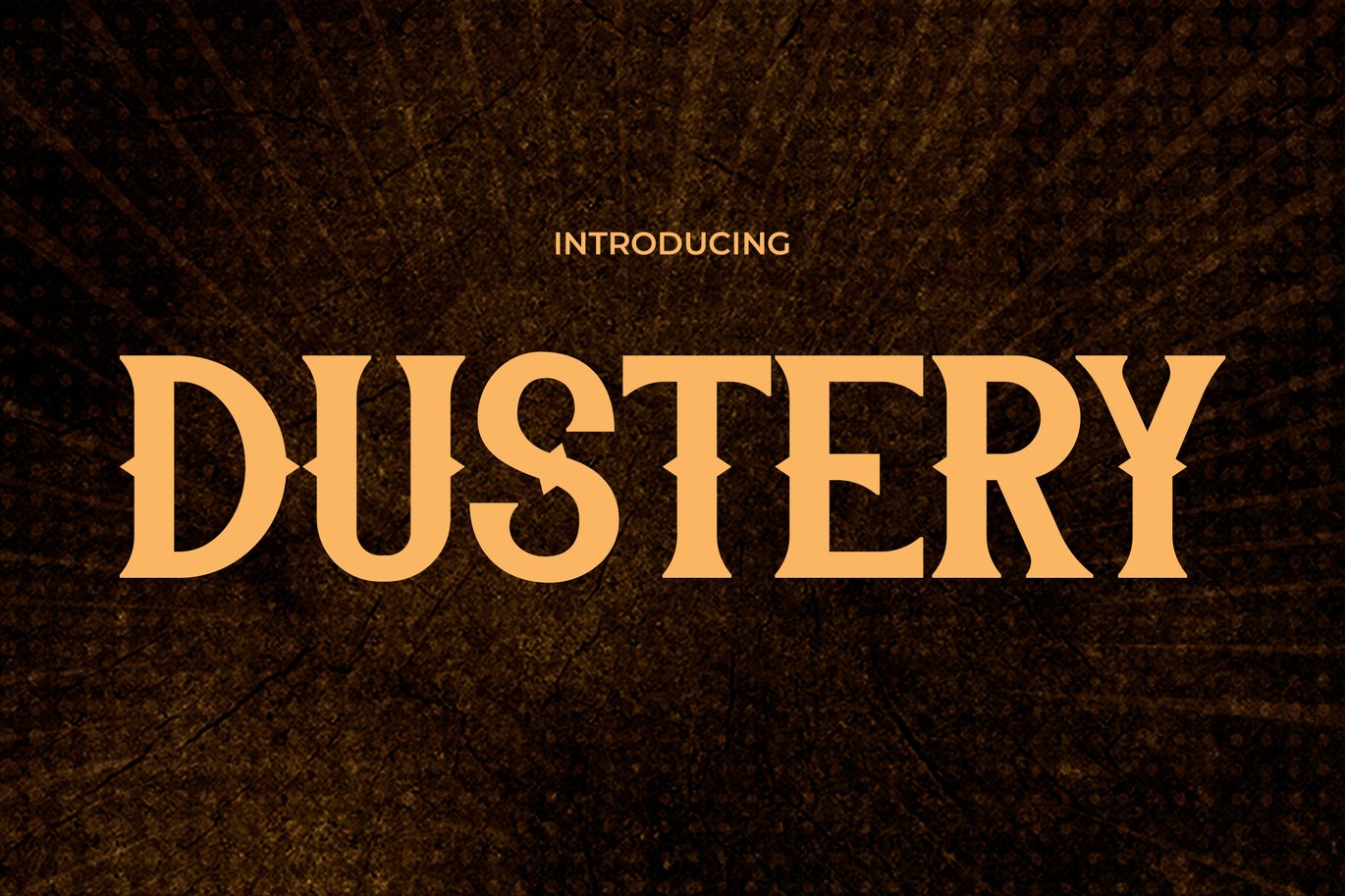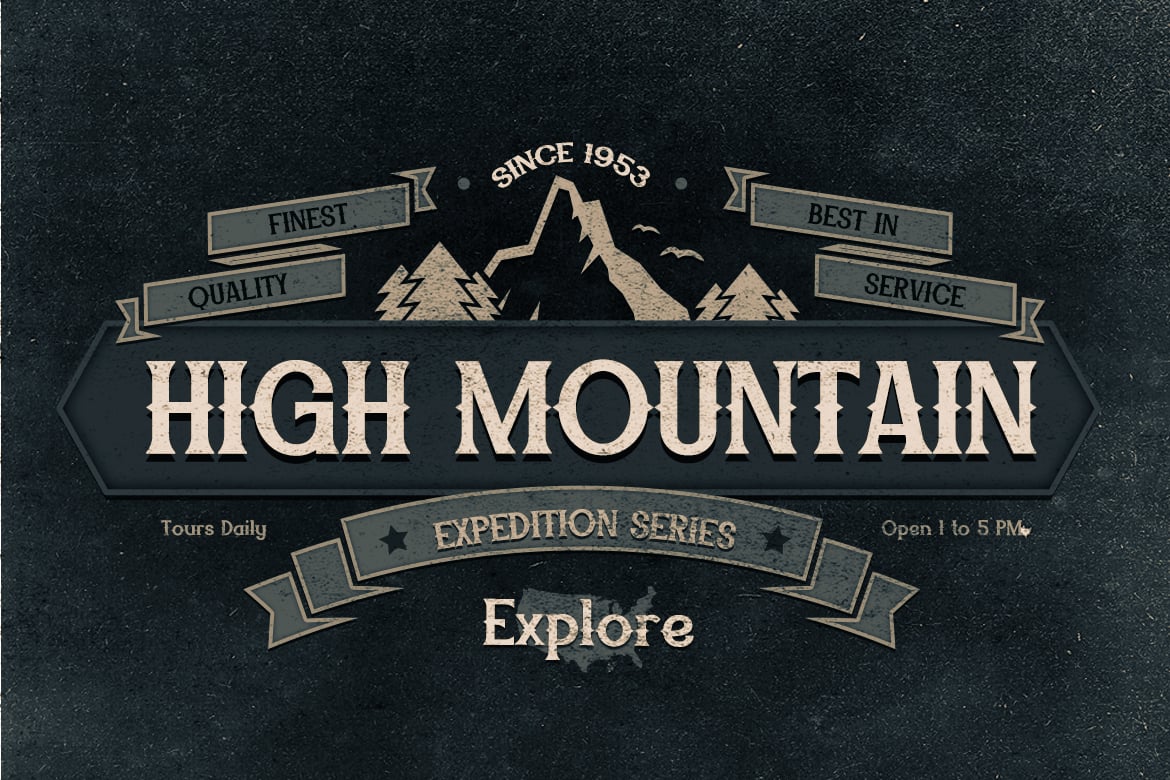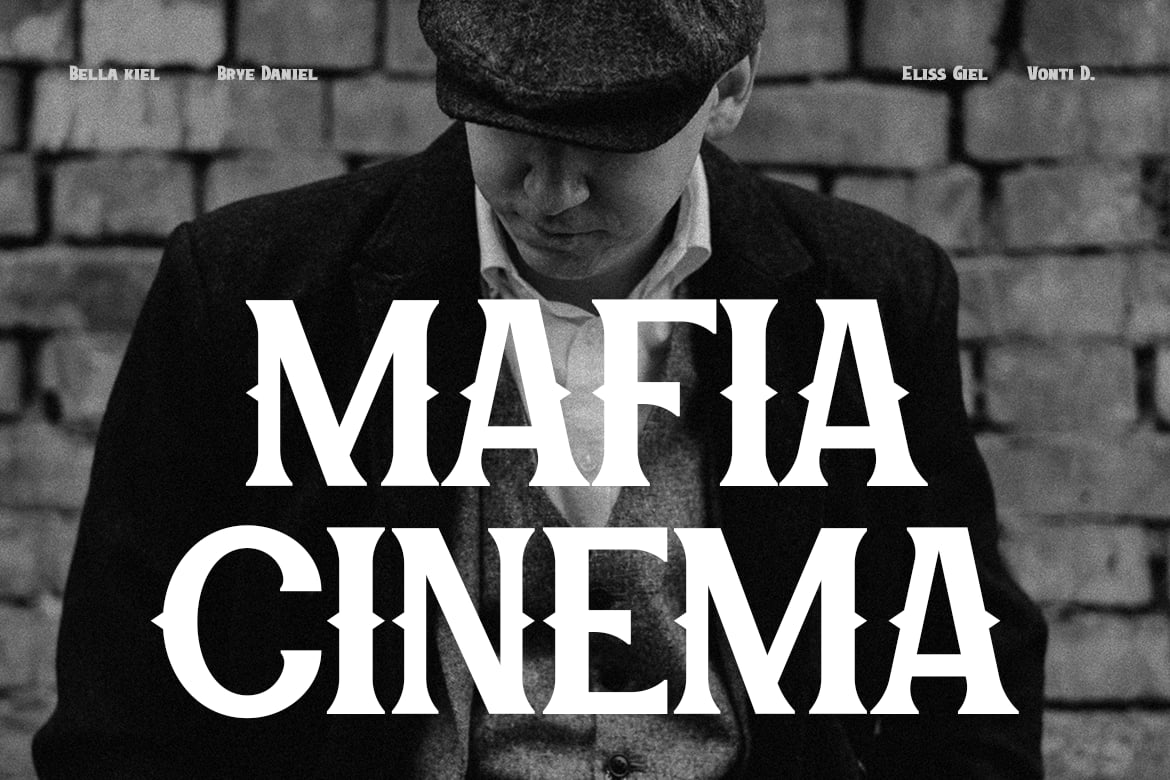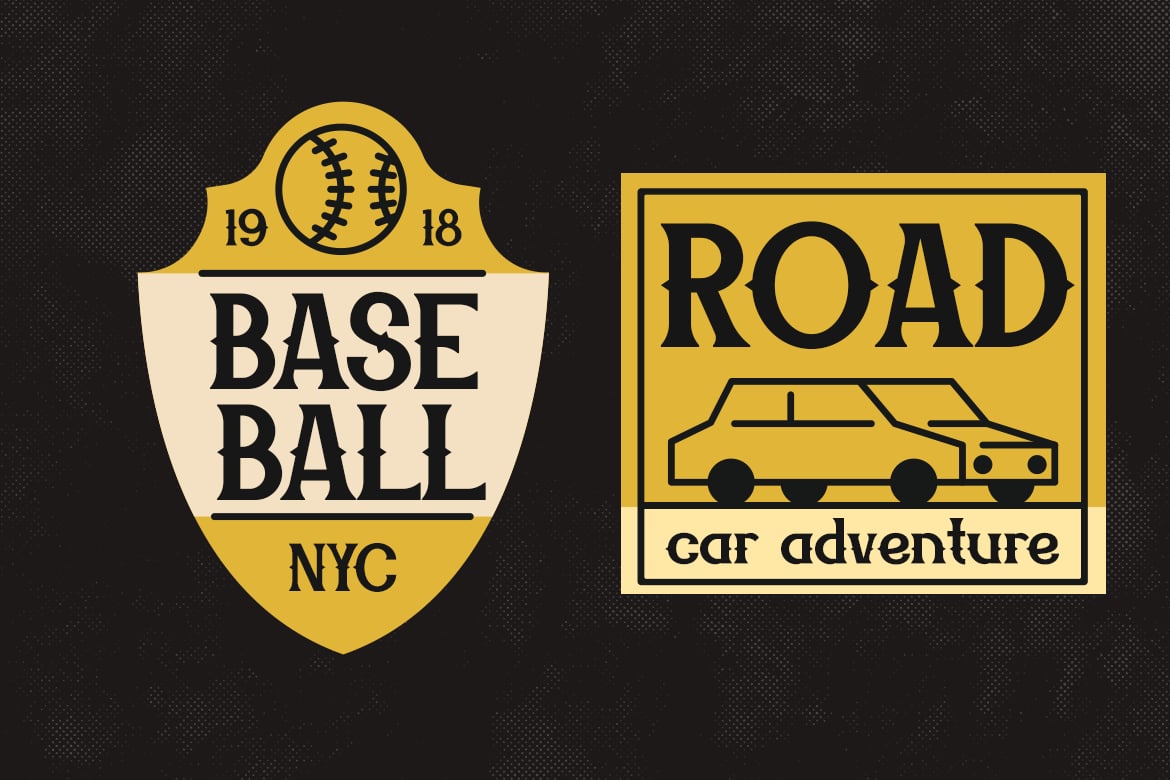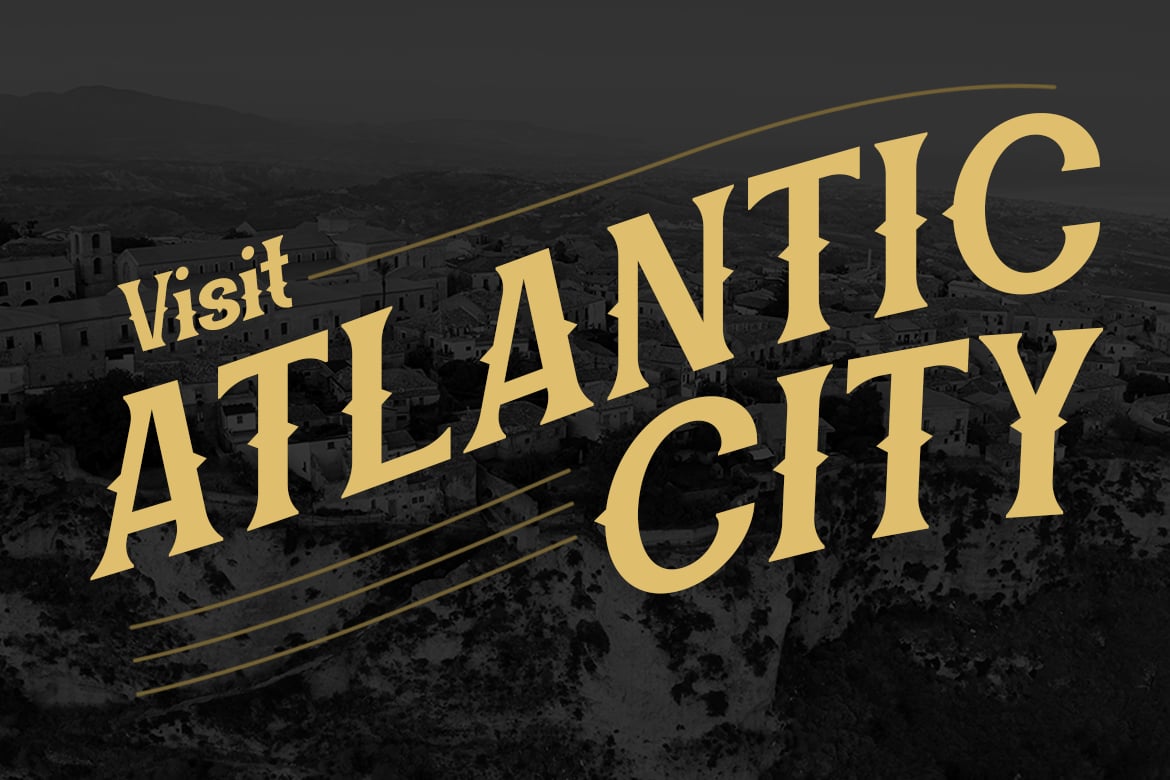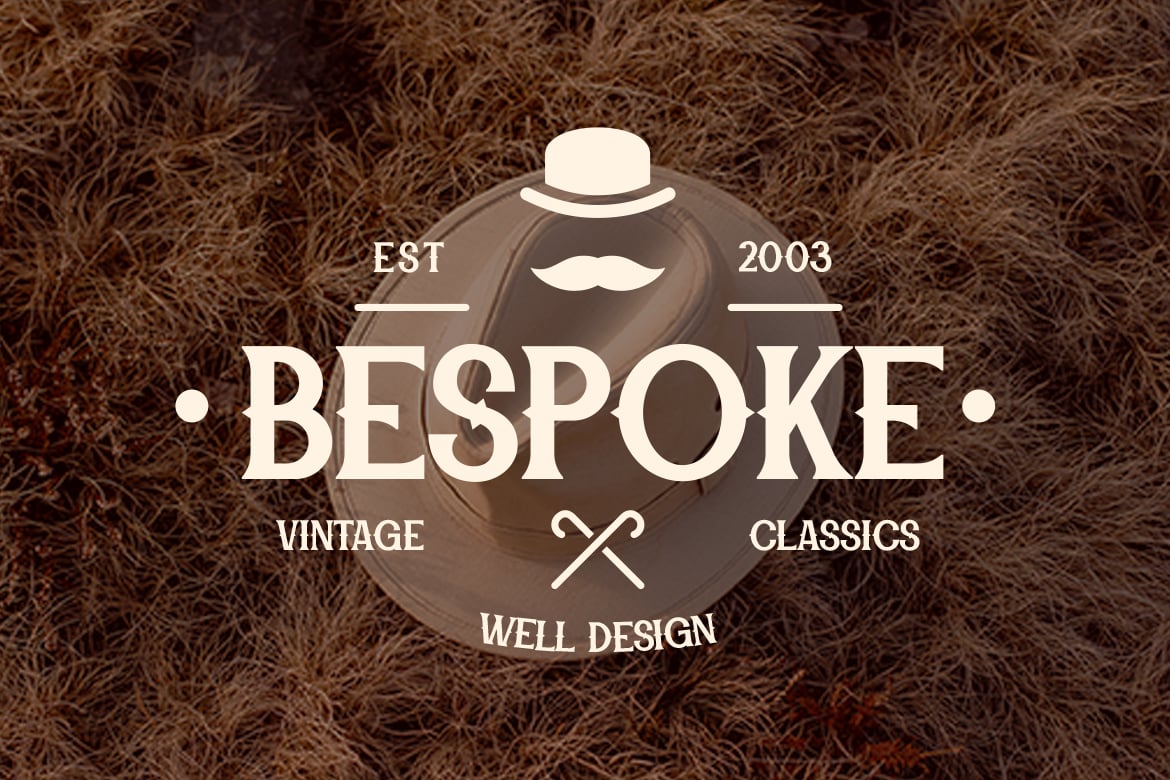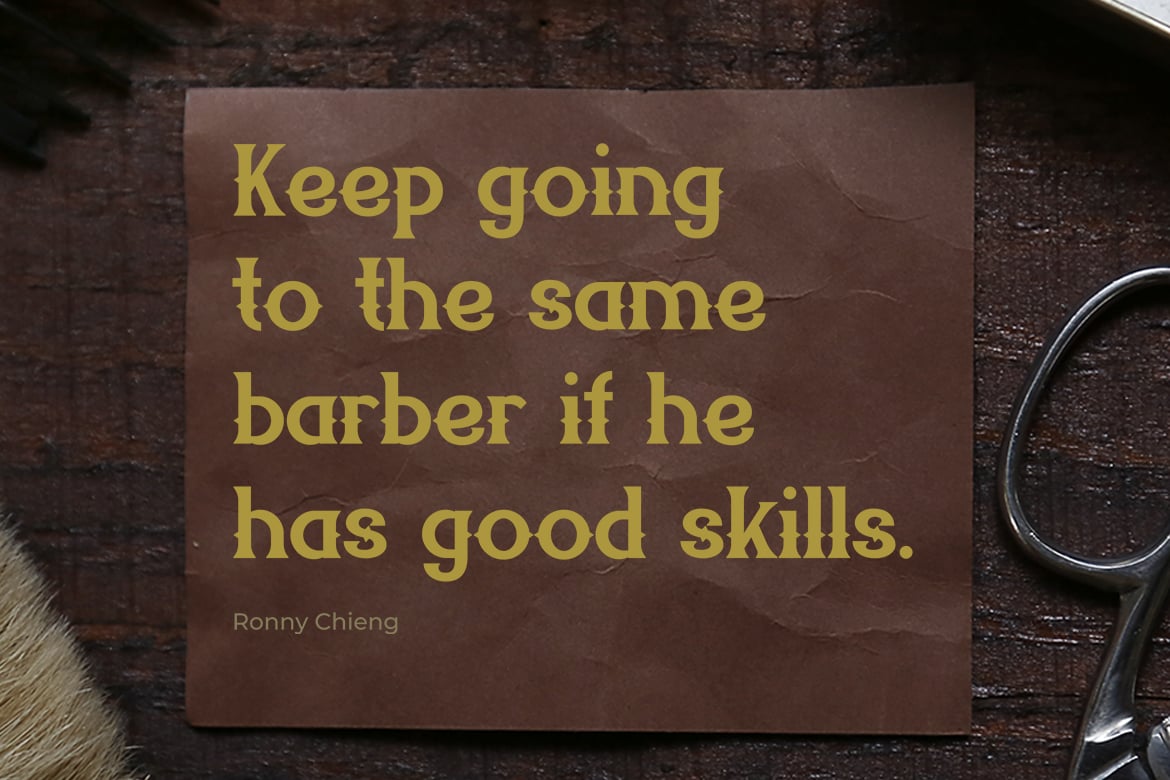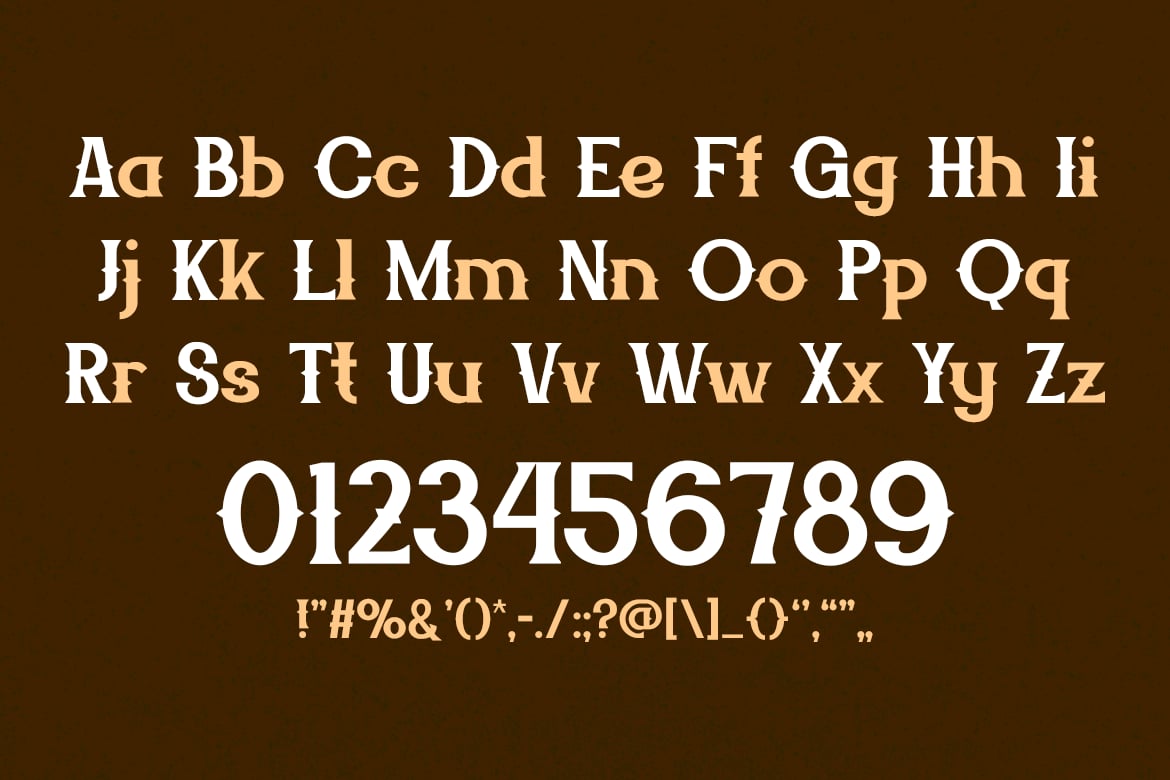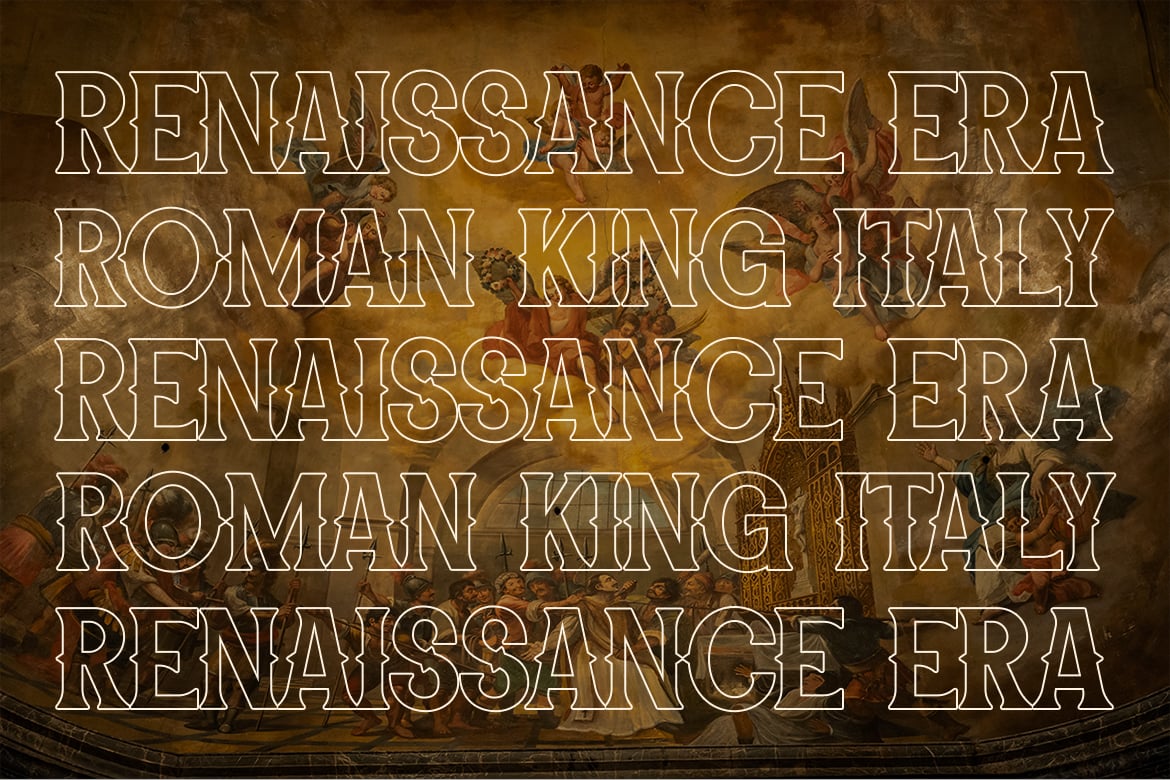
Dustery Modern Elegance with a Retro Western Font
Dustery is a uniquely modern font that artfully blends retro elegance with cowboy and Western styles. This font creates a perfect harmony between contemporary design and the rugged charm of the Old West. Dustery adds a distinctive character to logos, infusing brands with a blend of modern sophistication and Western authenticity. Its elegant yet bold style is particularly effective in enhancing quotes, adding a touch of rugged elegance that captures the spirit of the frontier. In invitations, Dustery sets a tone of adventurous sophistication, perfect for creating an inviting and memorable atmosphere. Its application in posters and greetings adds a warm and engaging touch, conveying messages with a unique blend of styles.
In the realm of packaging and branding, Dustery provides a distinctive and stylish identity that combines modern elegance with the rustic appeal of cowboy and western motifs, making products and brands stand out with originality. Dustery ensures your message is delivered with an impactful mix of contemporary chic and Wild West charisma for book covers, event promotions, headlines, and advertising.